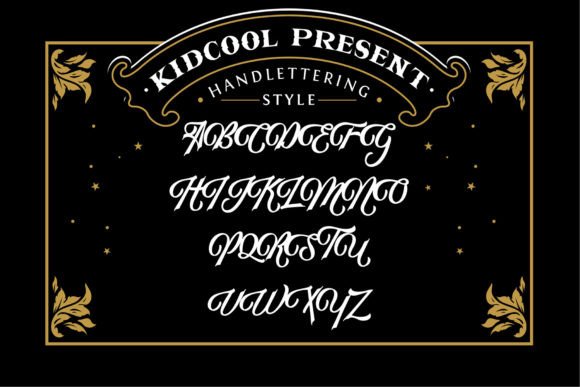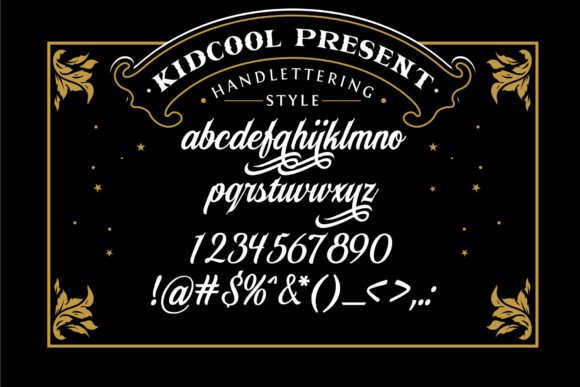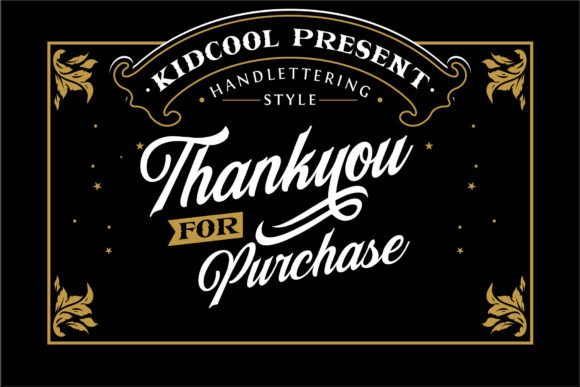
About Murghen Script Font
Murghen Script is a beautifully crafted hand lettering font with several distinctive advantages that can bring varied nuances to your creative work. This versatile font is well-suited for a range of applications, including wedding cards, logos, logotypes, letters, covers, and more.
The uniqueness of Murghen Script lies in its hand lettering style, which adds a touch of elegance and authenticity to your projects. Whether you’re designing a wedding invitation, creating a memorable logo, or crafting striking book covers, this font offers the flexibility to enhance your work with a personalized and artistic flair.
The advantages embedded in Murghen Script contribute to its adaptability across different design contexts. Its graceful and flowing characters make it particularly suitable for projects where a sophisticated and handcrafted aesthetic is desired.
For wedding cards, Murghen Script can infuse a romantic and personalized feel, setting the tone for the special occasion. In logo design, it brings a unique and memorable touch, making your brand stand out with a handmade charm. Logotypes, letters, and covers benefit from the artistic nuances that Murghen Script adds, creating a visual impact that captures attention.
Incorporate Murghen Script into your design toolkit to leverage its advantages in creating visually appealing and distinctive projects. Let its hand lettering charm enhance your work, adding that extra touch of creativity and elegance to your wedding cards, logos, logotypes, letters, covers, and beyond.